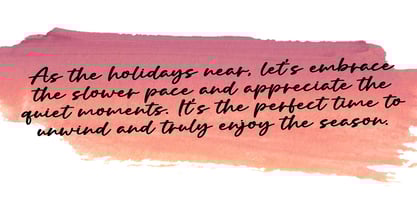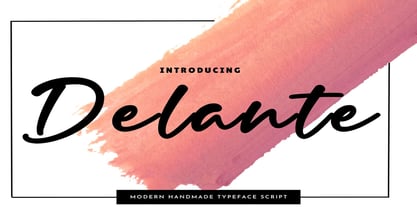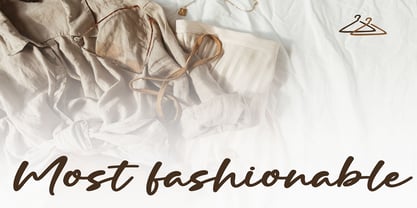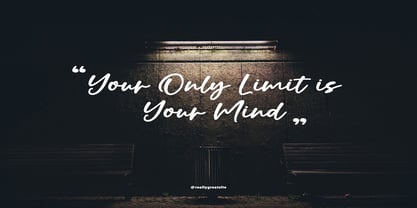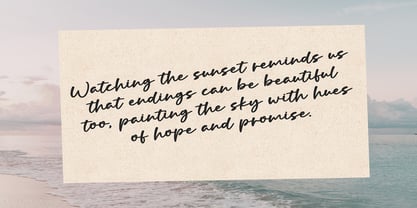
Delante
by Dream Font
The Delante Font Family was designed by Mark Jamra and published by Dream Font. Delante contains 1 styles.
Introducing Delante our exquisite Modern Signature handwritten Font, designed to add a touch of sophistication and style to your projects. Crafted with utmost precision and creativity, this font is a true embodiment of elegance, making it ideal for various purposes. Whether you're designing logos, wedding invitations, social media posts, branding materials, or any creative project, this font will elevate your work to new heights.